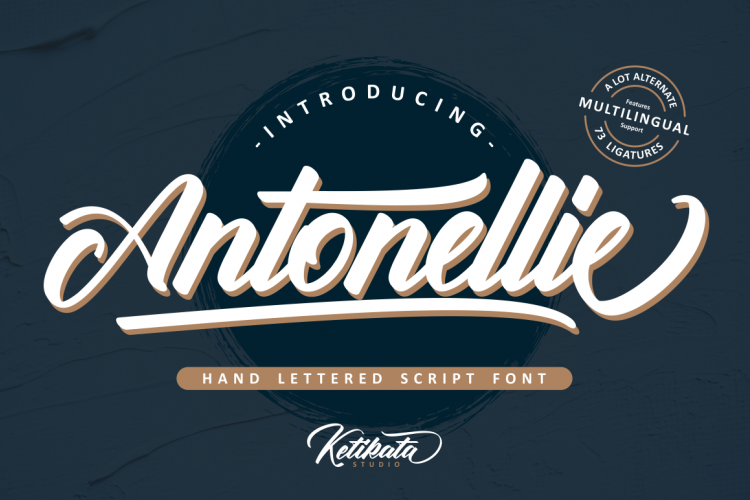
Antonellie Calligraphy Font
Very great, it was my original feel. This is a modern calligraphy font with the current handwriting style, this font is perfect for branding, you can try first if you want to buy this font! Introducing Antonellie Hand Lettered Script! Antonellie Calligraphy Font is a strong and bold script font. carefully crafted with hand lettering. that contains many stylistic alternate and swashes that will help you to create your own customized design. this font has unique and perfect for branding (Logotype) and other design needs, like for quotes, merchandise, packaging, business card and many other project.